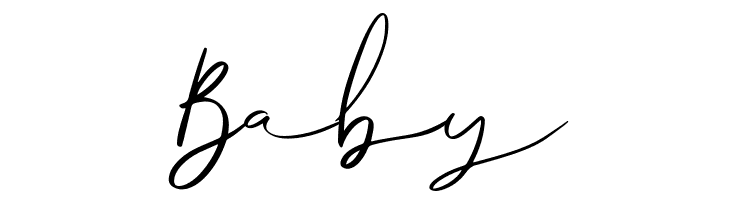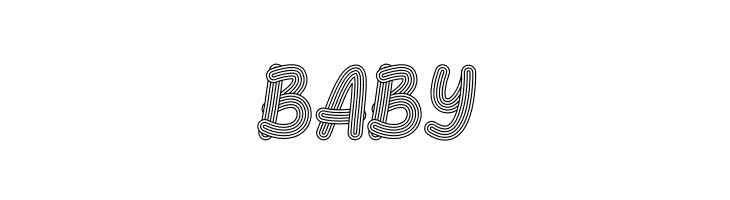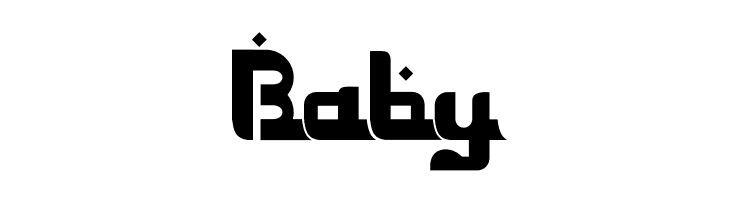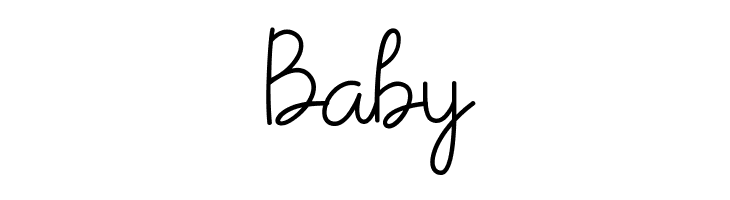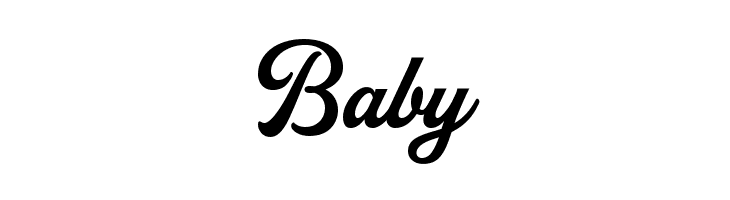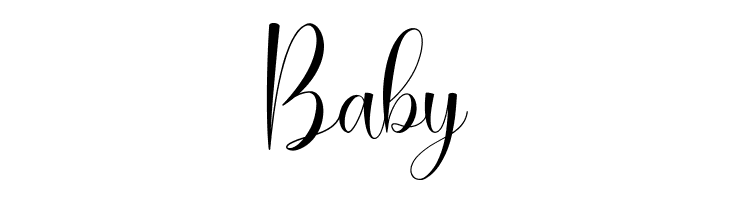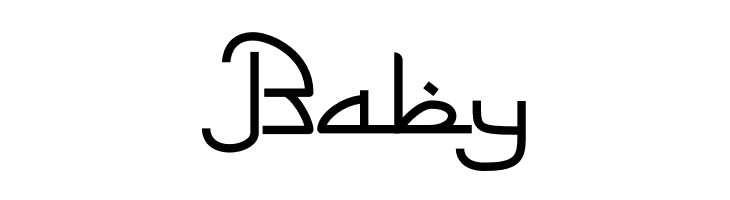
A bold, elegant script font with high contrast and flowing, interconnected characters.
An elegant, flowing script font with graceful curves and sophisticated style.
A playful, handwritten font with fluid, connected letterforms.
A bold, expressive script font with a hand-drawn, calligraphic style.
A bold, expressive script font with a playful, brush-like style.
A modern, geometric font with a futuristic and dynamic design.
A bold, geometric font with unique diacritical marks and a modern aesthetic.
A flowing, cursive script font with elegant, connected letters.
A playful, noodle-inspired font with bold, intertwined strokes and a decorative style.